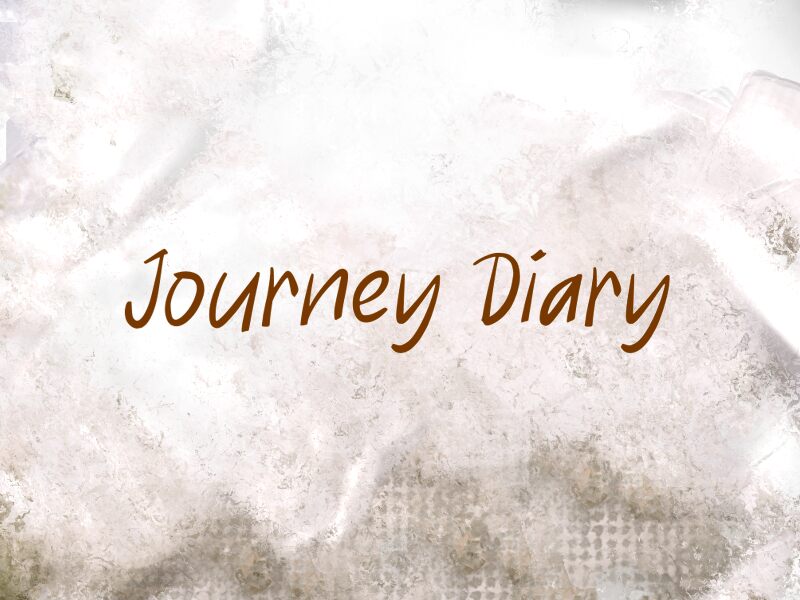
Journey Diary is a versatile free font that embodies a charming handwritten style, perfect for adding a personal touch to your designs. Whether you're working on invitations, greeting cards, or creative projects, this font can enhance the overall aesthetic with its stylish and unique character.
With its fluid lines and playful contours, Journey Diary is designed to capture attention while maintaining clarity and legibility. It is suitable for both digital and print applications, making it an excellent choice for any creative endeavor.